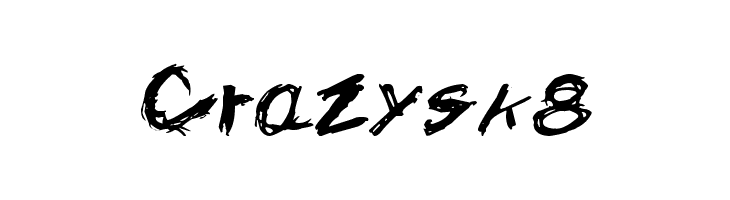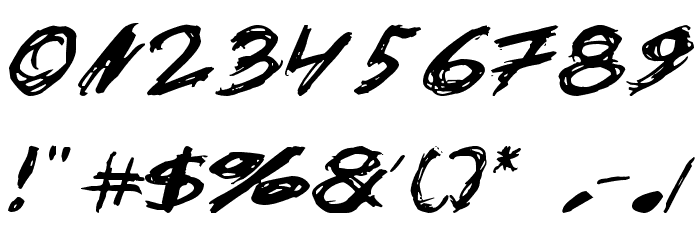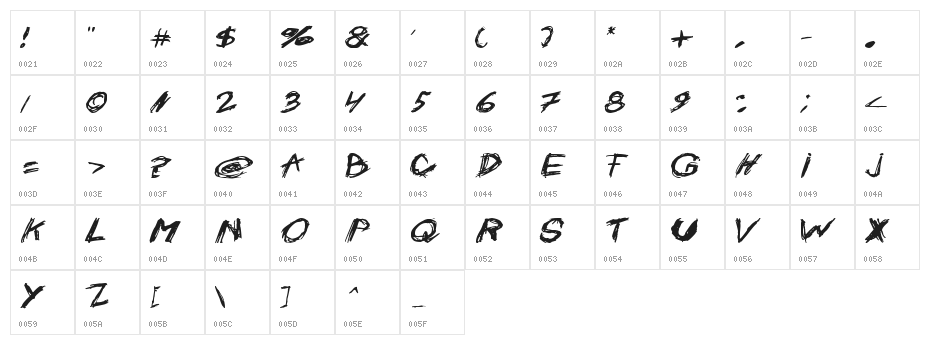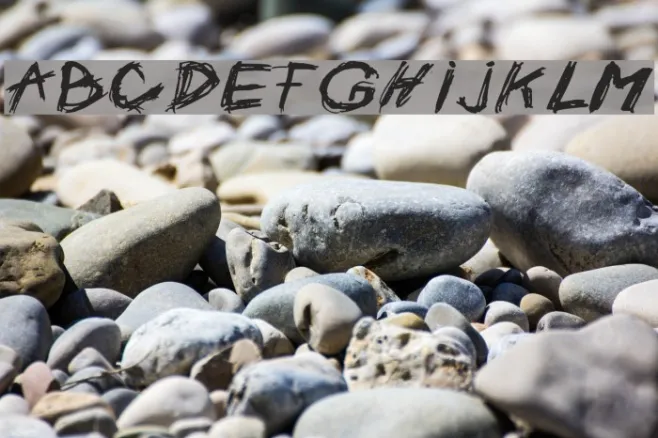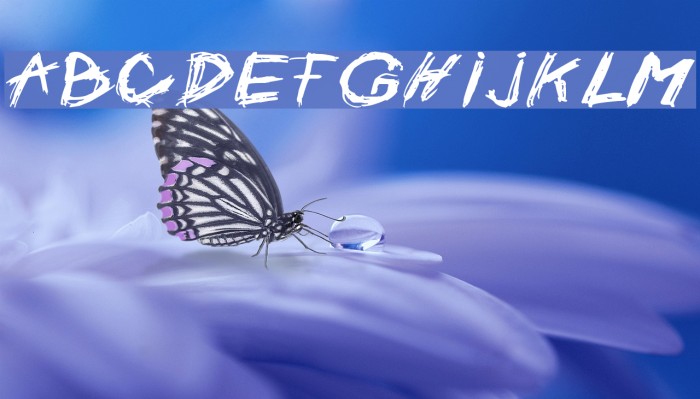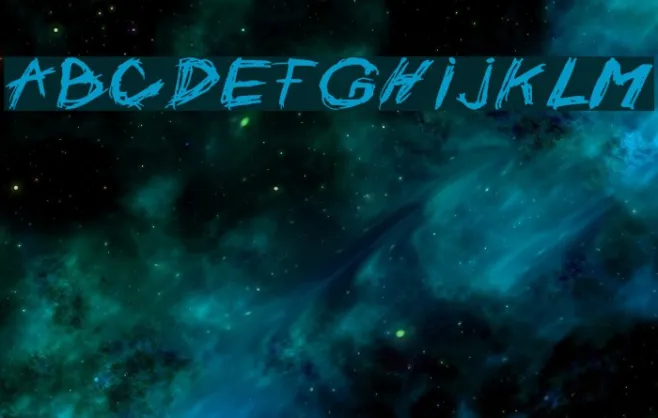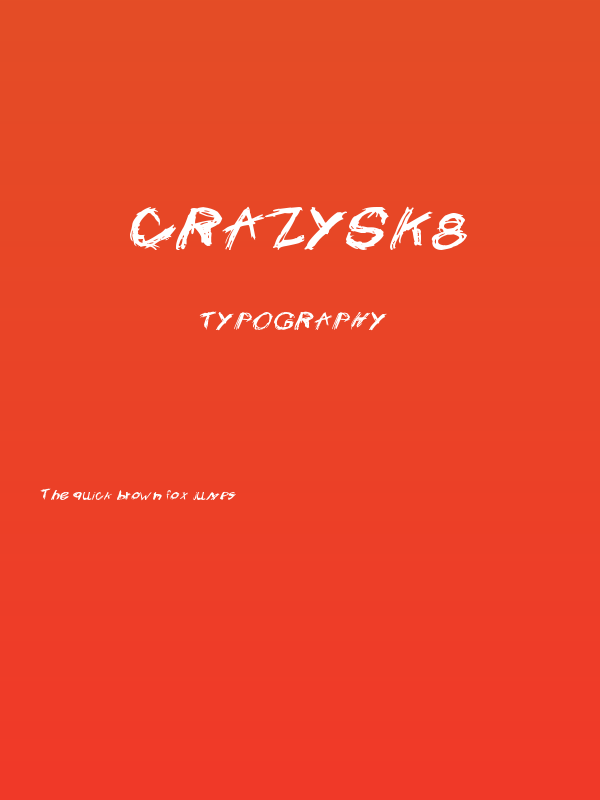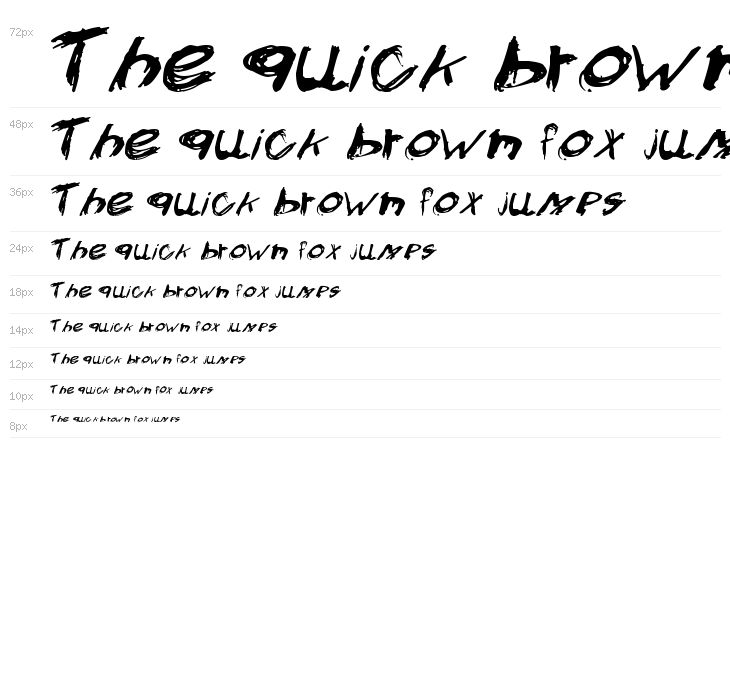
Crazysk8 Font
Crazysk8 Description
This font features a bold, energetic style with a brush-like texture that gives it a dynamic and edgy appearance. The characters are irregular and slightly chaotic, with strokes that vary in thickness, creating a sense of movement and spontaneity. The uppercase and lowercase letters maintain a consistent style, while the numbers and special characters integrate seamlessly with the overall design. This font is ideal for projects that require a strong, impactful visual presence, such as skateboarding or extreme sports branding, music album covers, or urban-themed posters.
| Overall Style | Modern, Energetic |
| Use Case | Logos, Posters, Branding |
| Proposed Projects | Perfect for skateboarding brands, music album covers, urban-themed posters, and extreme sports marketing. |